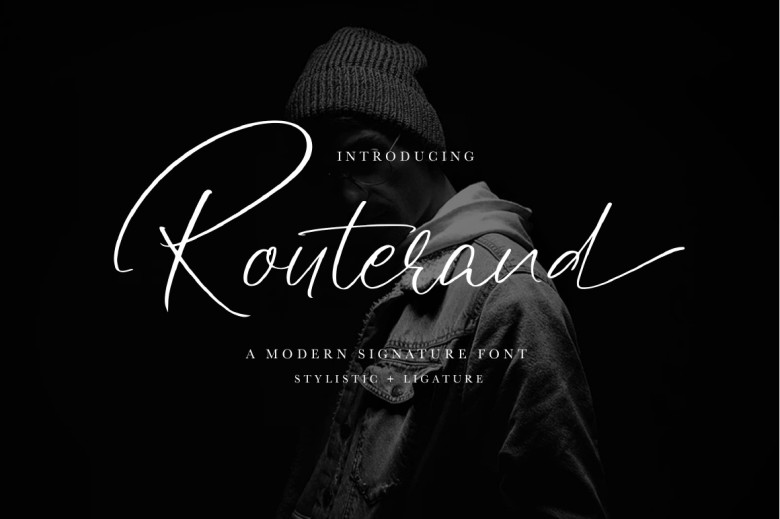
Routerand Font
Routerand is a thin lettered and graceful script font. Fall in love with its elegant charm and use it to create stunning wedding invitations, gorgeous stationary art, pretty social media posts, and much more! Routerand is PUA encoded, which means you can easily access all of the intense love glyphs and swashes!
Routerand Handwritten Font